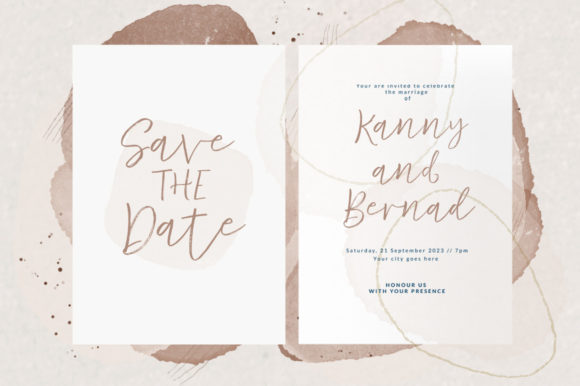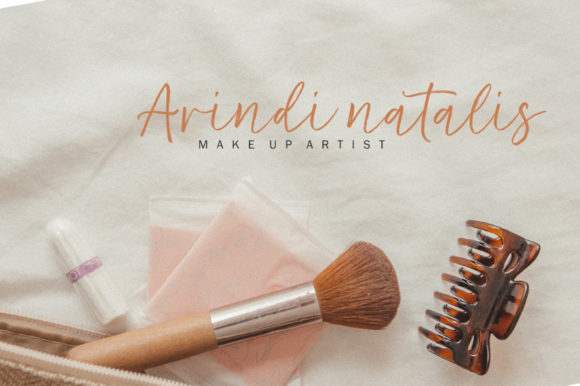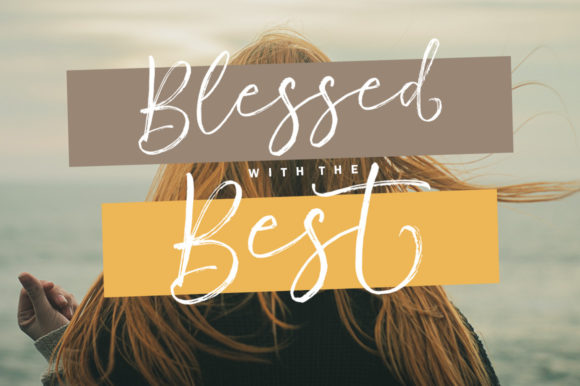
Introduction to Belpast Script Font
Have you ever been in the middle of a creative project, pouring your heart and soul into a design, only to feel like something’s missing? That’s where the right design resource can make all the difference. For designers, finding the perfect font can be a game-changer, elevating a simple design to a stunning work of art.
One such font that’s sure to capture your attention is the Belpast Script Font. With its elegant and lovely script style, it’s the perfect addition to any design. Whether you’re working on a wedding invitation, a logo, or a social media graphic, this font is sure to add a touch of sophistication and class. Plus, with its transparent background, you can easily layer it over any image or background, giving you endless design possibilities.
Key Features of Belpast Script Font
- High-quality, elegant script font ideal for creative projects and design resources.
- Features a beautiful, cursive script style with unique flourishes and subtle variations in line width.
- Perfect for use in invitations, wedding stationery, greeting cards, and other creative projects that require a touch of elegance and sophistication.
Honest Review: Belpast Script Font
I recently stumbled upon the Belpast Script Font, and I must say it’s been a game-changer for my creative projects. As a designer, I’m always on the lookout for high-quality design resources that can elevate my work.
- ✨ Beautiful, elegant script style that’s perfect for invitations, weddings, and other special occasions.
- ✨ High-quality font files that are easy to work with, even for beginners.
- ✨ Transparent background option, which is a must-have for designers who want to achieve a seamless look.
However, I do have a few minor quibbles:
- ⚠️ Limited character set, which may not be ideal for designers who need to typeset lengthy text.
- ⚠️ Some users may find the font a bit too ornate for everyday use.
Overall, I’m thoroughly impressed with the Belpast Script Font. Its unique style and high-quality files make it an excellent addition to any designer’s toolkit. While it may have some limitations, I believe the benefits far outweigh the drawbacks.
Tips for Getting the Most Out of Belpast Script Font
For the best results, use Belpast Script Font on a transparent background to make it stand out. You can also experiment with different font sizes and styles to add visual interest to your design. With Belpast Script Font, the possibilities are endless, making it a valuable design resource for any creative project.
Belpast Script Font is commonly used for wedding invitations, social media graphics, logos, brochures, and posters. Its elegant and sophisticated design makes it perfect for various creative projects, from fashion to food design.